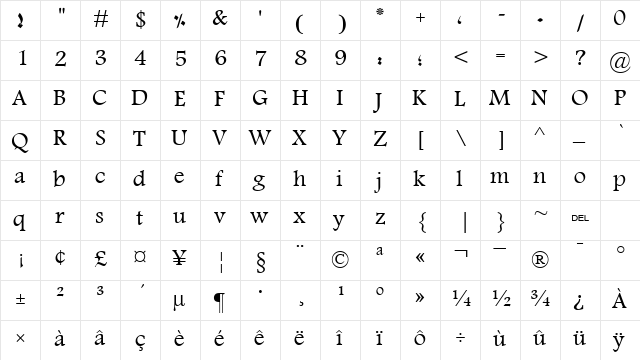
Mohammad Laha Regular
Design Context for Mohammad Laha Typeface
Mohammad Laha is a composed and adaptable typeface that performs quietly and consistently across a wide range of design contexts.